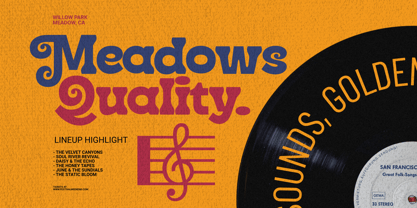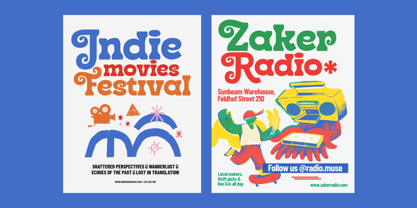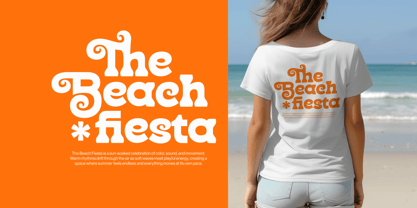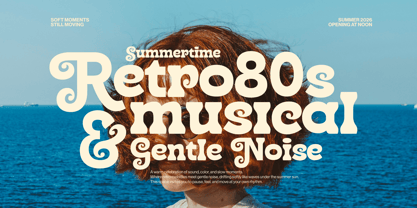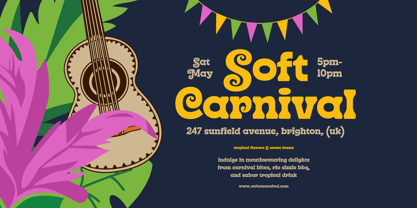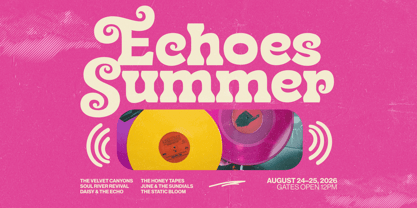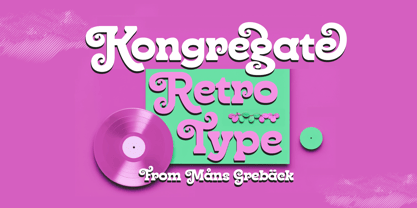
Kongregate
by Mans Greback
Kongregate is a bold display typeface with playful curls and a sturdy, rounded build. It feels cheerful and confident, with a rhythm that keeps letters lively without becoming chaotic. The shapes are heavy and compact, but softened by decorative terminals that add personality and warmth. There is a slightly retro tone to the design, hinting at classic arcade lettering and hand-drawn signage, while still staying clean and readable. The lowercase carries just as much character as the uppercase, making longer words feel consistent and intentional. The font is built with advanced functionality and guaranteed top-notch quality, containing stylistic and contextual alternates, ligatures and more automatic and manual features; all to give you full control and customizability. It has extensive lingual support, covering all Latin-based languages, from North Europa to South Africa, from America to South-East Asia. It contains all characters and symbols you'll ever need, including all punctuation and numbers. Designed by Mans Greback, Kongregate was drawn with a focus on charm and balance. The idea was to create a typeface that feels friendly and expressive, but still solid enough to hold its own at large sizes. It is meant to bring a sense of fun without sacrificing clarity or structure.